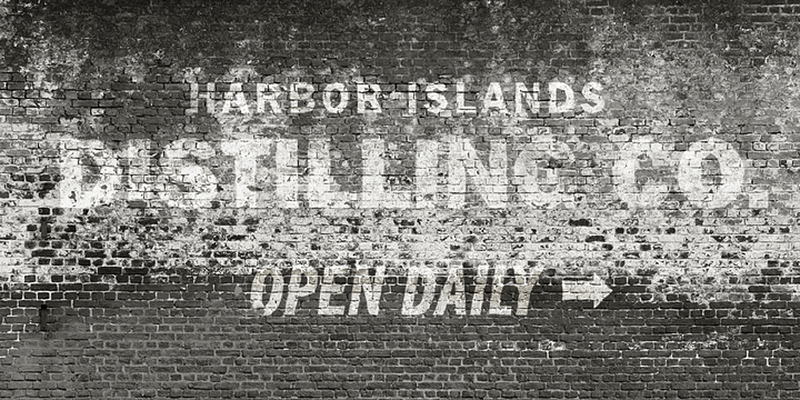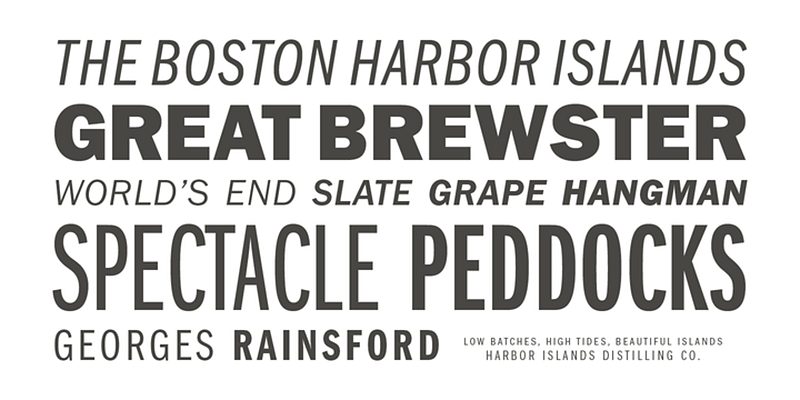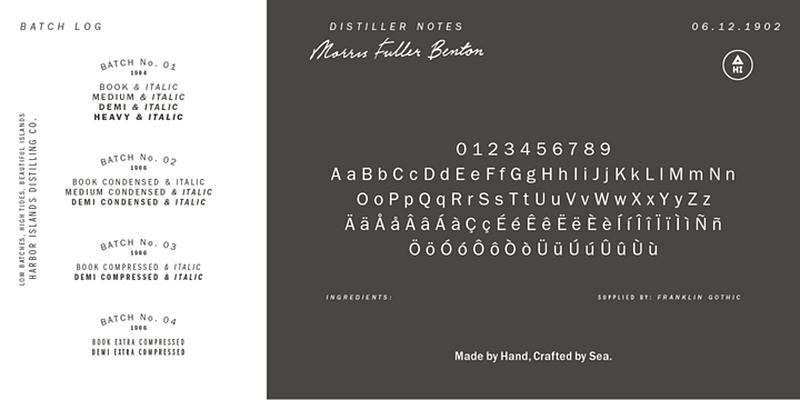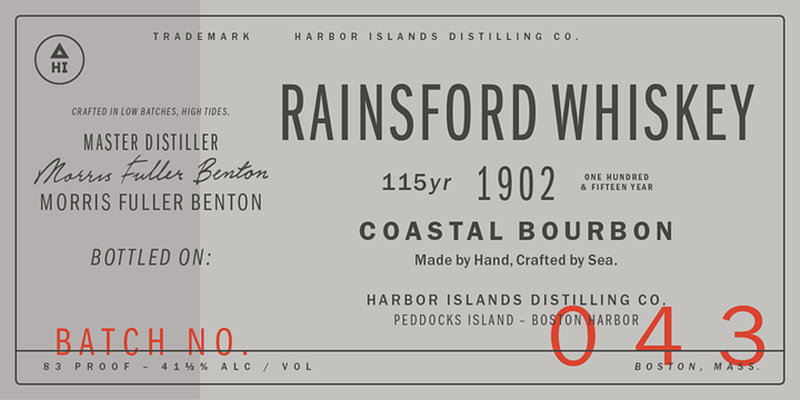
Franklin Gothic, one of the most popular sans serif types ever produced, was designed by Morris Fuller Benton in 1902 for American Type Founders. In 1979, under license with ATF, Vic Caruso began work on more weights of the design for ITC. This version adheres closely to the subtle thick and thin pattern of the original design; the slightly enlarged x-height and condensed proportions of the new version result in greater economy of space. This typeface is a standard choice for use in newspapers and advertising. In 1991, David Berlow completed the family for ITC by creating compressed and condensed weights. ITC Franklin Gothic Compressed is designed especially to solve impossibly tight copyfitting problems, while maintaining high legibility standards. ITC Franklin Condensed provides medium weights of narrow proportions. It is frequently seen in newspapers, advertisements, posters, and anyplace with space restrictions.